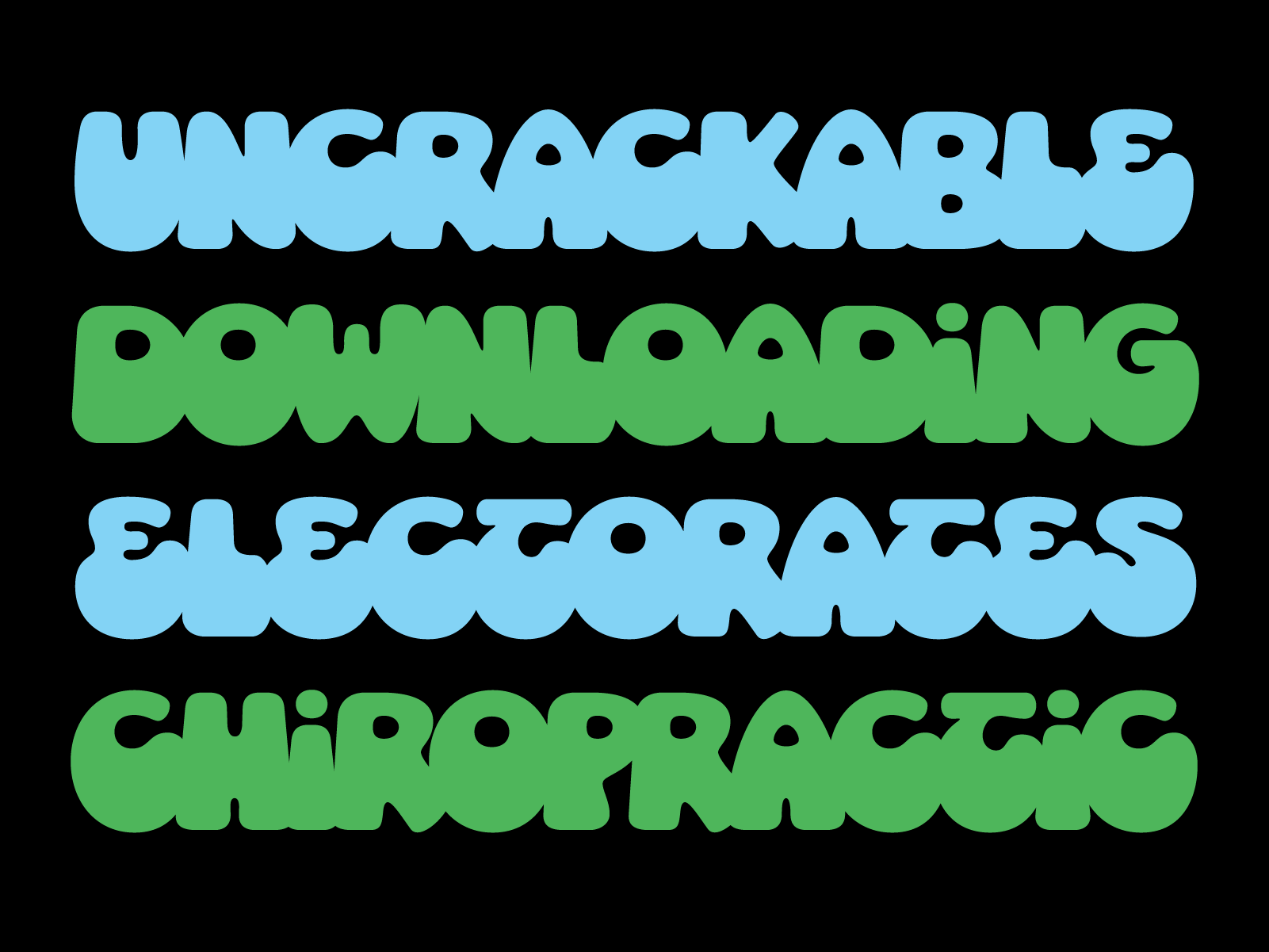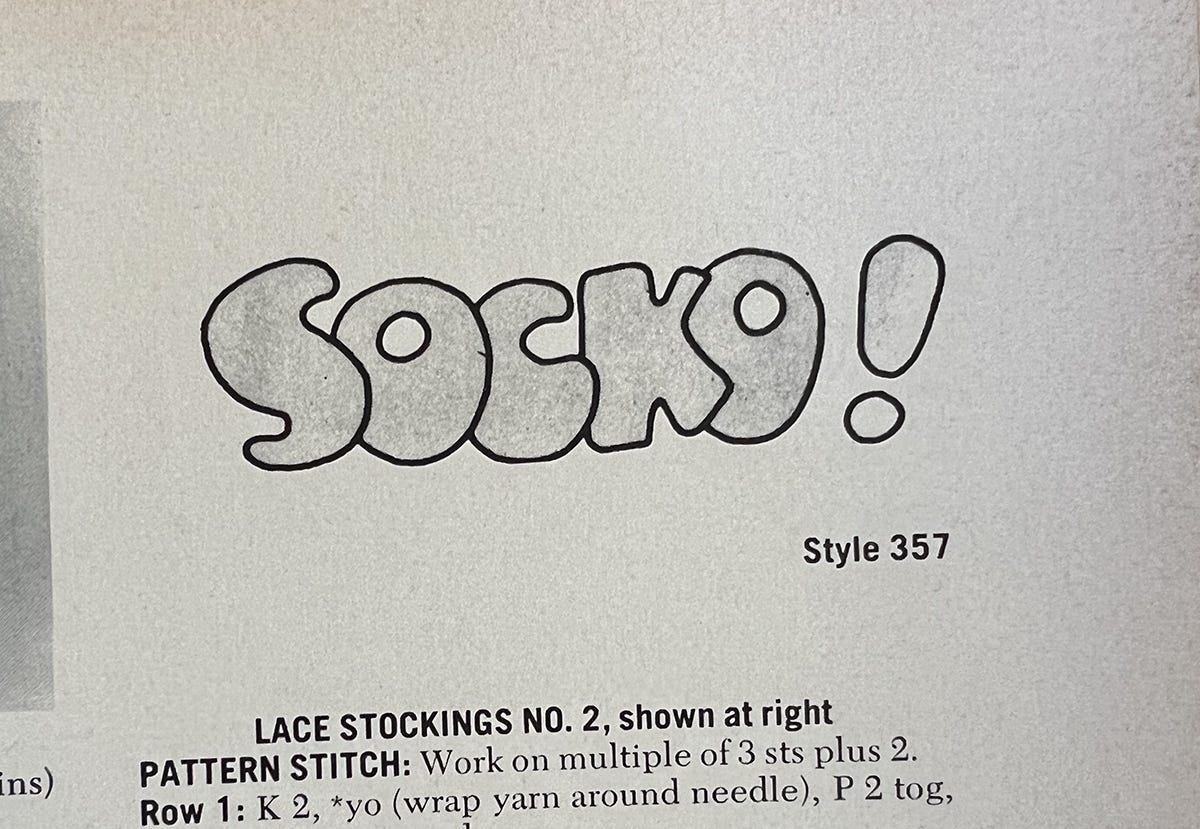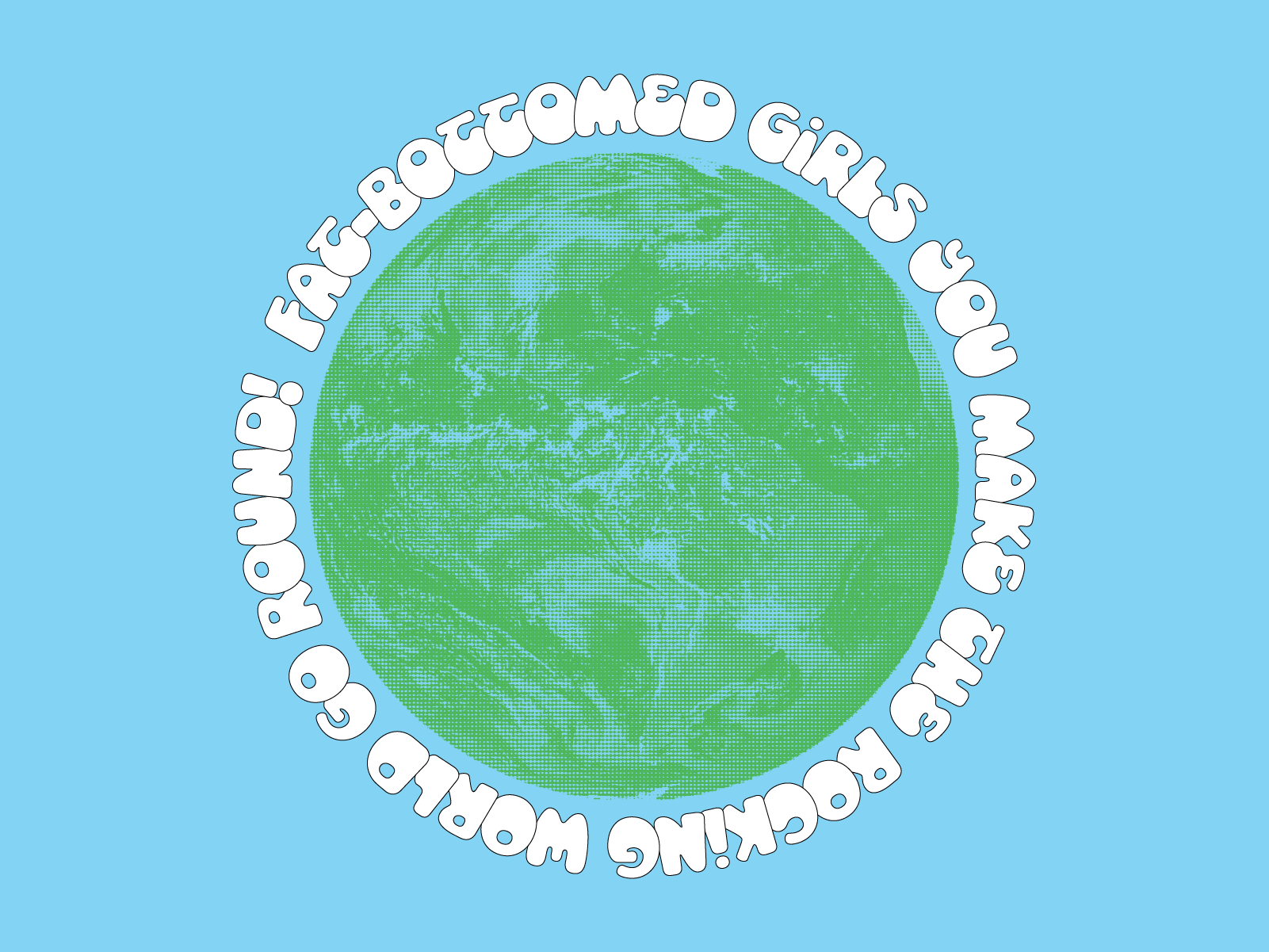
Week 43: Socko
I am bringing you a little bit of a revival this week. It’s got Schoolhouse Rock meets That 70’s show energy. It’s bottom heavy and strategically bumps into itself. Named after every sock puppet in the universe, Socko would happily live on a tee shirt for a brewery or signage for a vintage shop!
Last weekend, I was looking through vintage knitting magazines (as one does) and I found this lettering hanging out above a sock pattern. It was absolutely perfect. I couldn’t not design it this week, ya know?
I began by digitally tracing the existing letters and then using them in other words to try to find the system within S-O-C-K. Outside of it having negative side bearings and round forms, it wasn’t clear how the other letters would look. I added a H in to see how straight sided letters need to be handled and to have my control characters (H,O) fleshed out. It became instantly clear that the top of the letters have to pinch a bit so that they’re distinguishable in a word or block of text. I had to use some alternate forms for T, Y, and E. F and P are a little wild on their own but some concessions needed to made for the top heavy forms to work in this setting.
In the end, I am pretty stoked on this one. It’s always tricky to make super organic/rounded fonts come to life within a 4-day turn around. I’m not sure if I’ve ever said this to y’all, but I don’t work on the weekends on this project. I send it out mid-day Friday — so that gives me about 4.5 days to make them. It’s kind of nuts to do this to myself but I’ve learned soooo much! I am a much faster drawer and decision maker because of it. I hope you enjoy these every week as I, shockingly, still enjoy making them. We only have 9 weeks to go. I can not believe it’s single digits already!! See you next week!